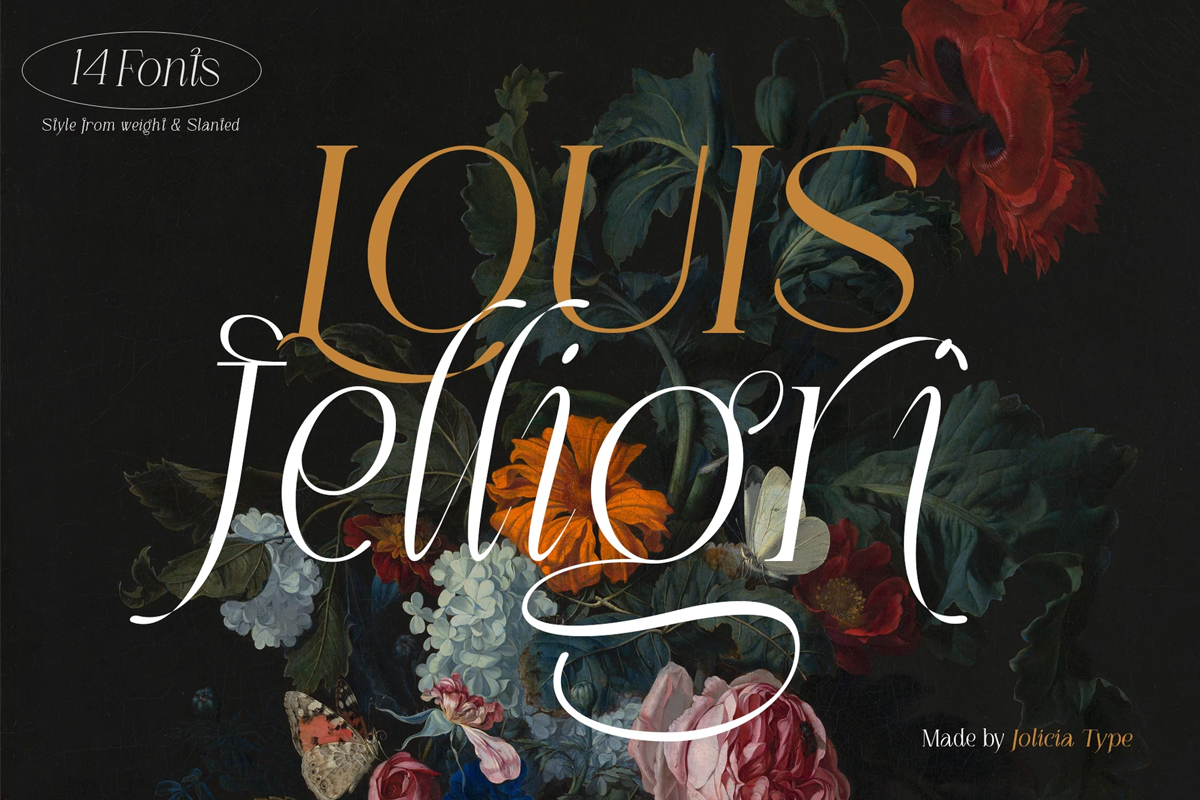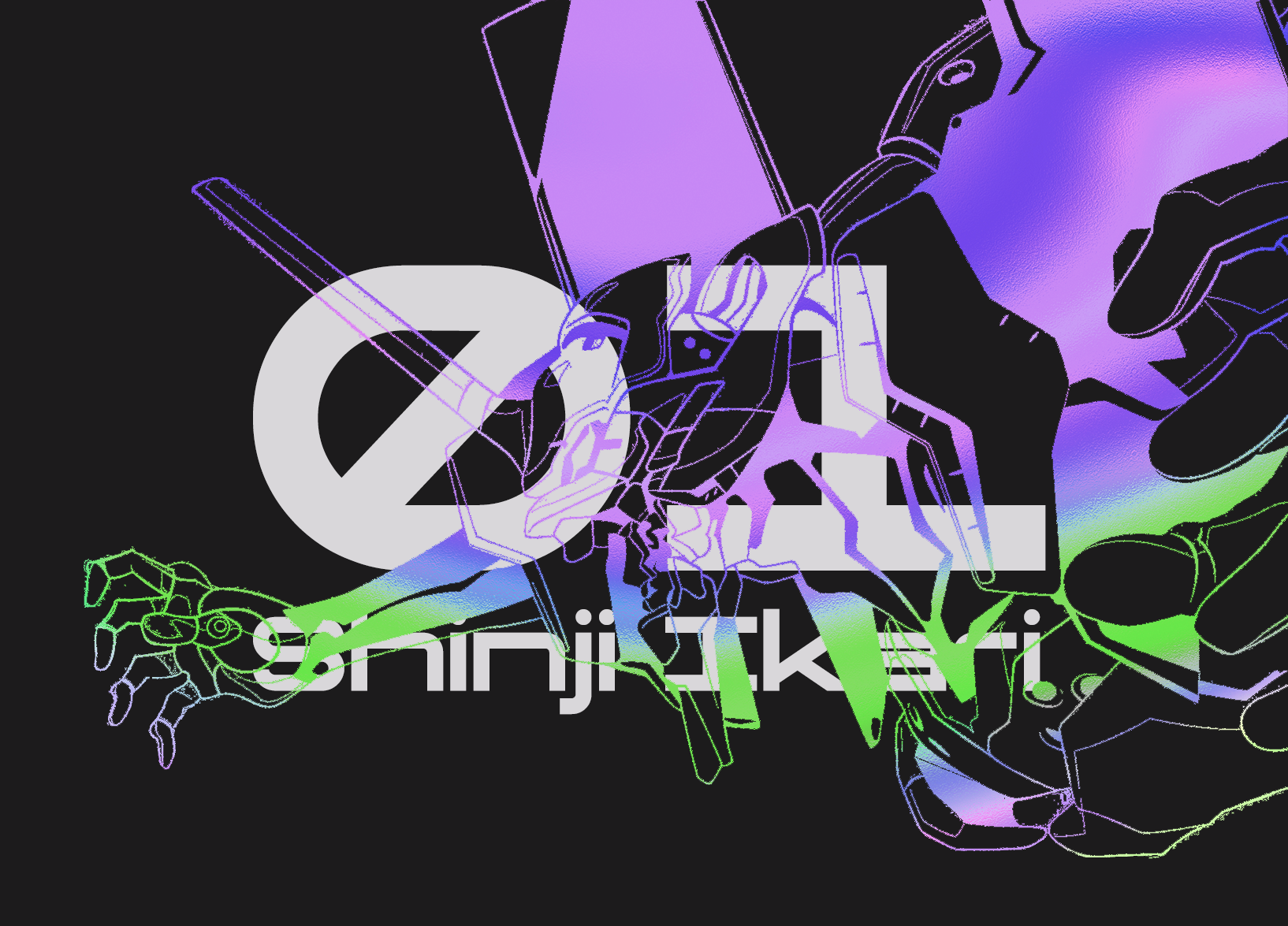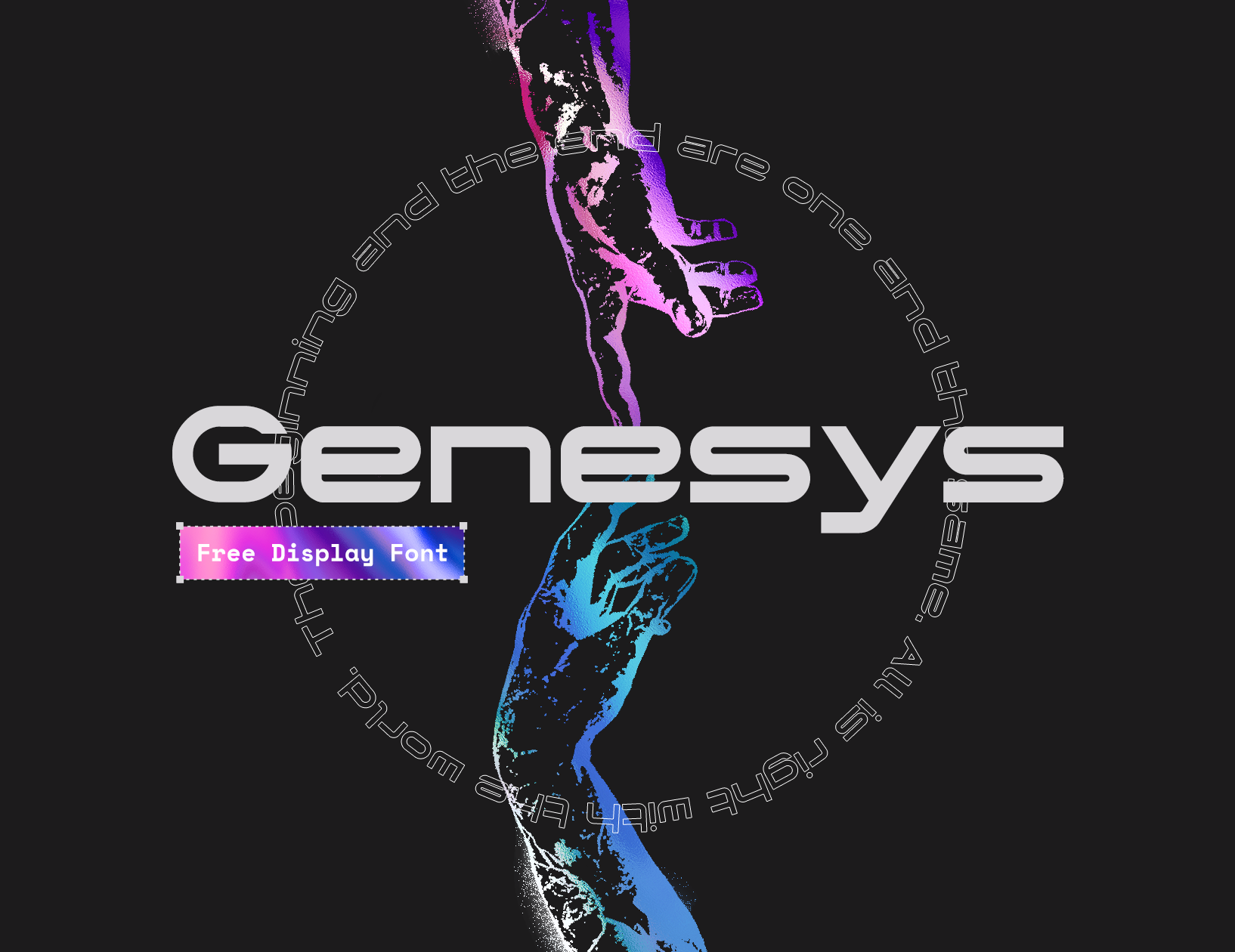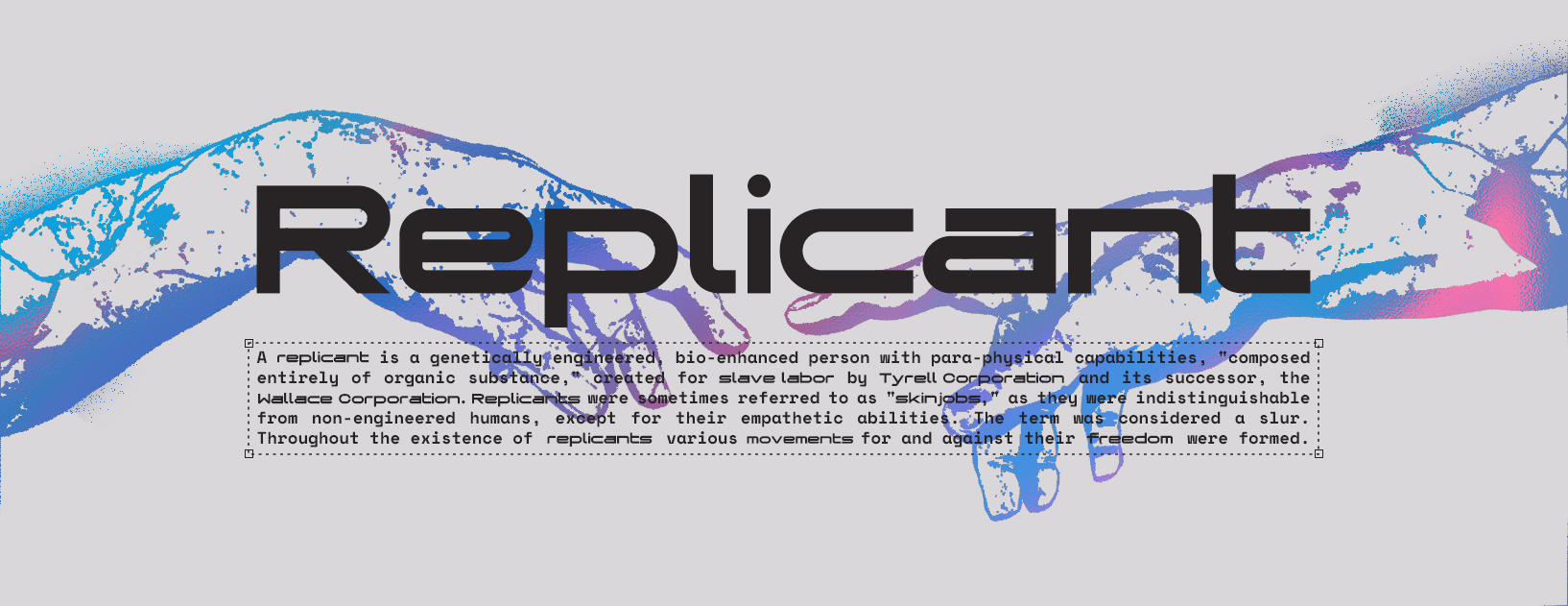
11 Best Free Display Fonts For Designers
As a graphic designer, you know the importance of using the right font. While there are many paid fonts available, sometimes you need something free. That’s where display fonts come in. These typefaces are designed for attention-grabbing headlines and signs, so they’re perfect for any design project that needs a bit of flair. Here are some of the best free display fonts available online. Enjoy!
Designers frequently produce presentations on the go, and they need free fonts to quickly put their work out. Sans serif fonts, and modern serif typefaces are necessary for designers’ own personal and commercial use according to their demands.
1. Cibiru – Free Display Font
Matthew Diki and JAGAD Creative designed Cibiru, a one-of-a-kind all-caps free display font.
With a variety of varied shapes around, this typeface is almost decorative in design.
Ideal for large-scale applications such as posters, headlines, and packaging.
2. Fracture – Free Display Font
Jol M has introduced the free blackletter typeface Fracture. This one-of-a-kind font mixes ancient and modern elements. Trademarks, branding, creating logos, subtitles, advertising, and other various things are all possible with this font.
Also, it is a retro-style font type and you can use it to create logos with two font styles with typography contrast with other fonts.
3. Elalba – Free Display Font
This display font was designed by TypeType. The free typeface comes in four styles: Light, Regular, Bold, and Black. You can use it for both personal and professional projects. This display font is perfect for headlines and large texts.
Elalba is a one-of-a-kind free display font from Citlalli Hm. You can download their free version from the link mentioned below.
This useful display font comes with a complete character set that includes capital letters, numerals, punctuation, and a variety of foreign letters.
Large displays, titles, banners, branding, and marketing are all possible with this product. Also, you can use this font for your creative projects, graphic design templates, and web design purposes as well. Elalba is a very unique display font.
4. Eubergine – Free Display Font
This display font was created by GraphicPear. Eubergine is available in two styles: Regular and Italic. You can use this display font for personal or commercial projects. This display font is perfect for headlines, branding, and marketing purposes.
Studio’s Eubergine is a free elegant display font.
Its distinct appearance makes it ideal for powerful headlines, marketing, promotional, or just as a stunning text overlay on any backdrop image.
The whole typeface includes a big number of alternate letters and ligatures; choose your favorite letters from the large collection to create your display typeface. This is one of the free fonts for designers and they can use this free font for their own purposes.
5. Eastory – Free Inline Display Font
EASTORY is an integrated display font from Glyphstyle. It has an attractive aesthetic because of the use of a mix of thin and broad lines.
Premium features such as ligatures and stylistic variations are also included.
EASTORY is ideal for brands, wedding designs, social media posts, ads, product packaging, product designs
6. Savage – Free Display Font
Rabia Coskun has released Savage, an aggressive and choppy display font. Savage has a hand-drawn vibe about it, as evidenced by the broken ends and large design.
Great for creepy, scary, horror, harsh, rock ‘n roll, and other genres. It is a very handwritten type in bold font.
7. Smotret – Free Display Font
Smotret is a free display font designed by Konstantinas Ladauskas that combines contemporary and old-school typeface. It was inspired by an old Russian clock in my home.
Smotret is an active, geometric, and bold font that will make your writing stand out even more.
There are ligatures in the given text it is even longer.
8. HC Gleam – Free Condensed Wavy Display Font
Mitch Proctor’s HC Gleam is a display font inspired by the guiding light all around us. The sun doesn’t care if it’s heavy, wavy, or strange.
9. Genesys – FREE DISPLAY FONT
Genesys is a modern display font motivated by science fiction films like Blade Runner and Neon Genesis Evangelion.
It’s designed to be large, sleek, and intimidating, exactly like the structural creatures who inspired it.
10. Louis Felligri Thin – Free Display Serif Font
LOUIS felligri is a show of modern serif font from the modern era. This font is a weight-variable typeface.
In a related program like Adobe Illustrator, you can choose from a variety of weight alternatives by utilizing the variable sliders in your design software.
To give your type a unique look, play around with individual letters. Alternate fonts are included in this family to give you even more style possibilities. It is both a combination of uppercase and lowercase letters. It is also a free font and you can download this free font from our free display font collections.